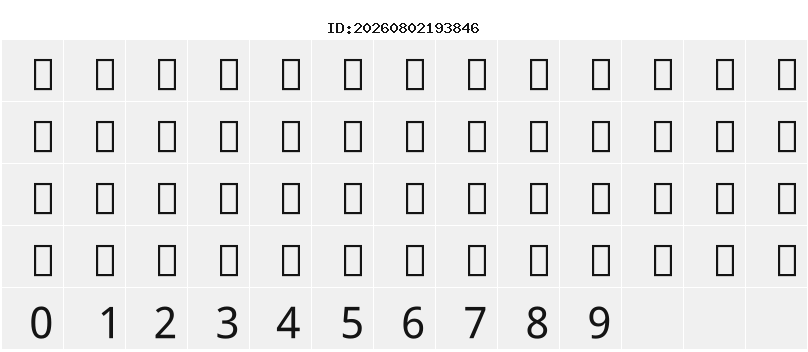
• Font Name: Noto Emoji
• Designer: Monotype Design team
• Description: Designed by Monotype design team
About Noto Emoji.ttf
Noto Emoji.ttf is a modern, elegant sans-serif font designed for ultimate readability and visual harmony. Perfect for branding, headlines, web design, and print materials.